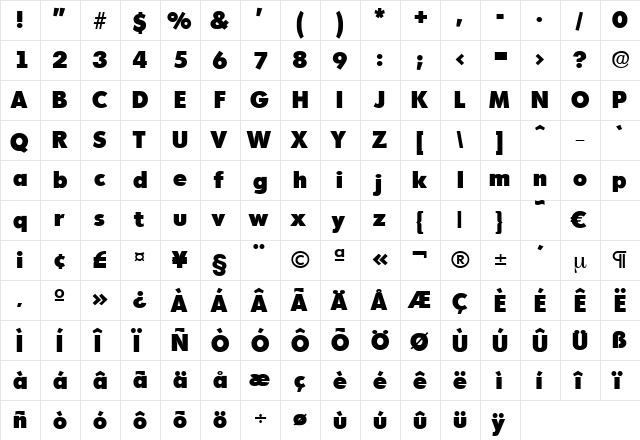
Montreal-Heavy Regular
Montreal-Heavy is a composed and adaptable typeface that performs quietly and consistently across a wide range of design contexts.